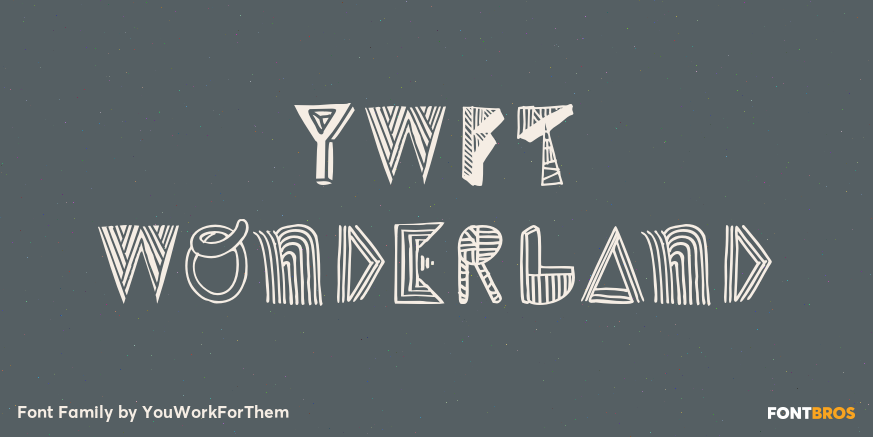
YWFT Wonderland
About YWFT Wonderland
If R. Crumb met Frank the Bunny for drinks, they\’d each order one bourbon, one scotch, and one Wonderland. Very aptly-named font. Go ask Alice. In fact, when the borogoves were done getting mimsy, YWFT Wonderland had ended up with over 1500 letter designs!…